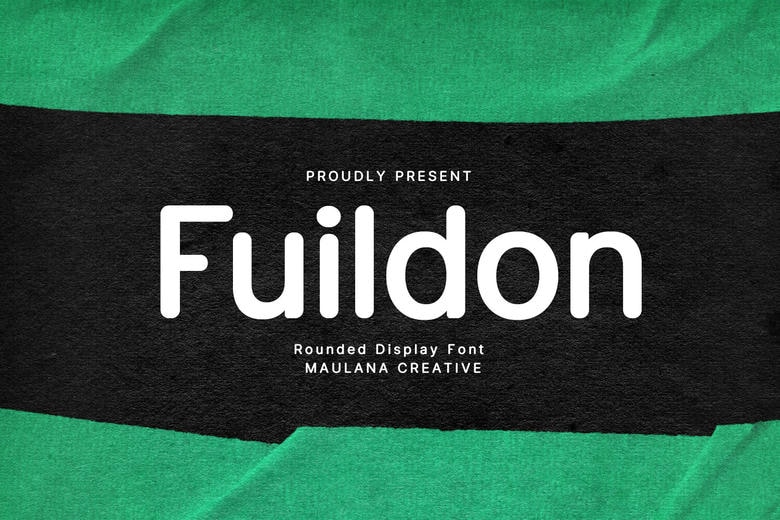
Fuildon Font
Fuildon is a soft and round font, which was designed with clear, new style of letters. Slight rectangularity on the sides is suitable for creating a homelike air and, when combined with layering, is perfect for square and expressive fonts!
Fuildon Sans Serif Font